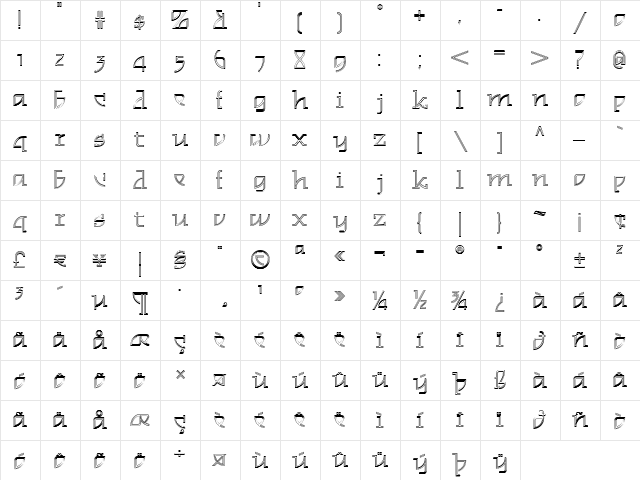
CambridgePinstripeNF Regular
| Foundry | \(c\) Nick Curtis |
Design Context for CambridgePinstripeNF Typeface
CambridgePinstripeNF is a composed and adaptable typeface that performs quietly and consistently across a wide range of design contexts.